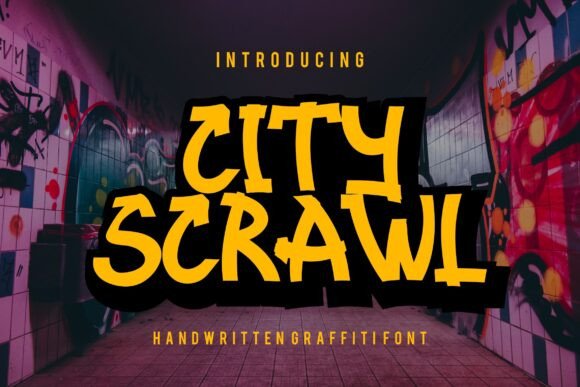
Introducing City Scrawl Font: The Ultimate Graffiti Font for Urban Designs
In the world of typography, fonts play a crucial role in conveying the tone and personality of a design. When it comes to creating bold and edgy designs, a graffiti font can be the perfect choice. City Scrawl Font is a unique and original graffiti font that can add a cool, urban vibe to your designs. In this article, we’ll explore the features and benefits of City Scrawl Font and how it can be used to elevate your designs.
What is City Scrawl Font?
City Scrawl Font is a bold and edgy graffiti font that is crafted with an original touch. Its strong and sharp style makes it perfect for titles, posters, typography, magazines, brochures, packaging, websites, and more. The font is designed to add a cool, urban vibe to your designs, making it ideal for designers who want to create bold and eye-catching typography.
Benefits of Using City Scrawl Font
There are several benefits to using City Scrawl Font in your designs. Some of the key benefits include:
- Unique and Original Design: City Scrawl Font has a unique and original design that sets it apart from other graffiti fonts. Its bold and edgy style makes it perfect for creating eye-catching typography.
- Versatility: City Scrawl Font can be used for a wide range of design projects, including titles, posters, typography, magazines, brochures, packaging, websites, and more.
- Easy to Read: Despite its bold and edgy style, City Scrawl Font is easy to read, making it perfect for use in titles and headings.
- Customizable: City Scrawl Font can be customized to fit your design needs, allowing you to adjust the font size, color, and style to suit your design.
Uses of City Scrawl Font
City Scrawl Font can be used for a wide range of design projects, including:
- Titles and Headings: City Scrawl Font is perfect for use in titles and headings, adding a bold and edgy touch to your designs.
- Posters and Flyers: City Scrawl Font can be used to create eye-catching posters and flyers that grab attention.
- Typography: City Scrawl Font can be used to create bold and edgy typography that adds a cool, urban vibe to your designs.
- Magazines and Brochures: City Scrawl Font can be used to add a bold and edgy touch to magazine and brochure designs.
- Packaging: City Scrawl Font can be used to create eye-catching packaging designs that stand out on store shelves.
- Websites: City Scrawl Font can be used to add a bold and edgy touch to website designs, making it perfect for use in headings and titles.
Tips for Using City Scrawl Font
Here are some tips for using City Scrawl Font in your designs:
- Use it Sparingly: City Scrawl Font is a bold and edgy font, so it’s best to use it sparingly to avoid overwhelming the design.
- Pair it with Other Fonts: City Scrawl Font can be paired with other fonts to create a unique and interesting design.
- Adjust the Font Size: City Scrawl Font can be adjusted to different font sizes to create a hierarchy of typography.
- Experiment with Colors: City Scrawl Font can be used with different colors to create a bold and eye-catching design.
City Scrawl Font is a bold and edgy graffiti font that can add a cool, urban vibe to your designs. Its unique and original design makes it perfect for use in titles, posters, typography, magazines, brochures, packaging, websites, and more. With its versatility, ease of use, and customizability, City Scrawl Font is a great choice for designers who want to create bold and eye-catching typography.